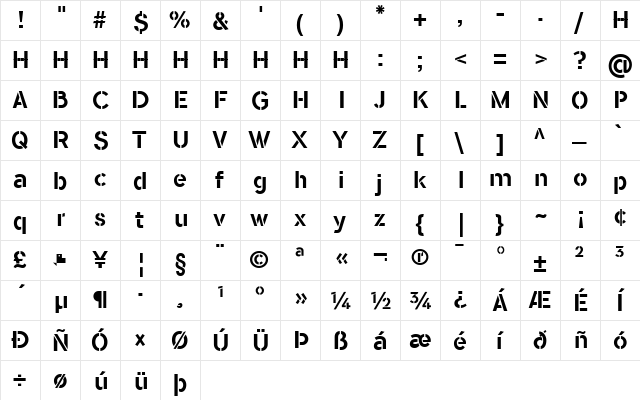
Flamante Stencil Medium
Foundry deFharo
DesignerFernando Haro
Design Context for Flamante Stencil Typeface
Flamante Stencil has the rough pragmatism of spray-painted stencil signage, adding a raw, street-level authenticity to designs.
A strong choice for packaging that needs edge, warehouse aesthetics, and rough-and-ready visual identities.
Pro Tip: Use Flamante Stencil at large sizes on packaging, posters, or apparel where the stencil cutaways read clearly. Avoid small sizes where those gaps become visual noise.